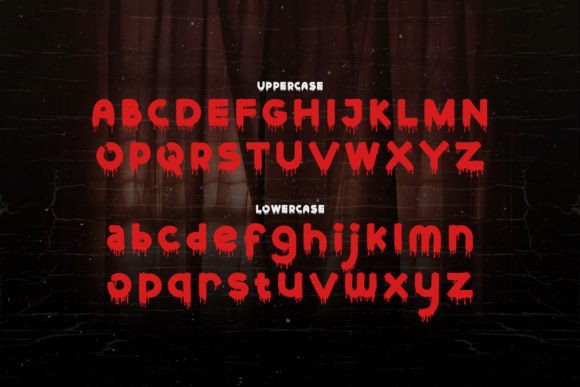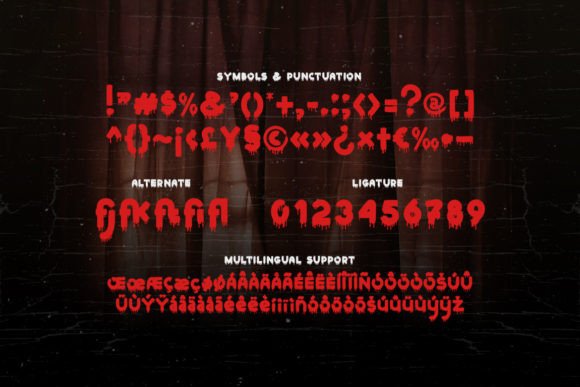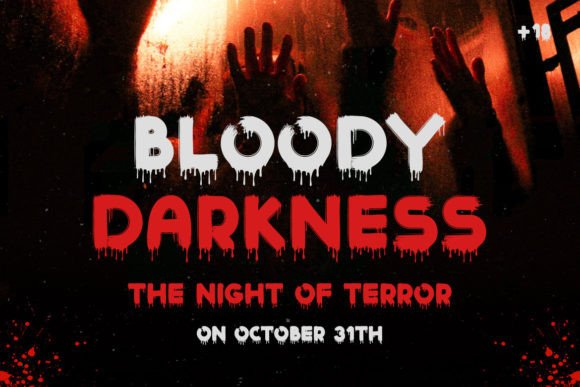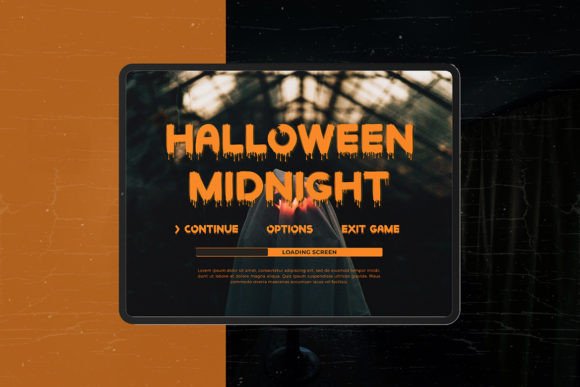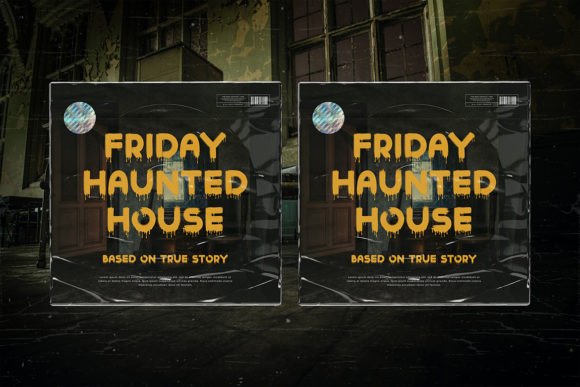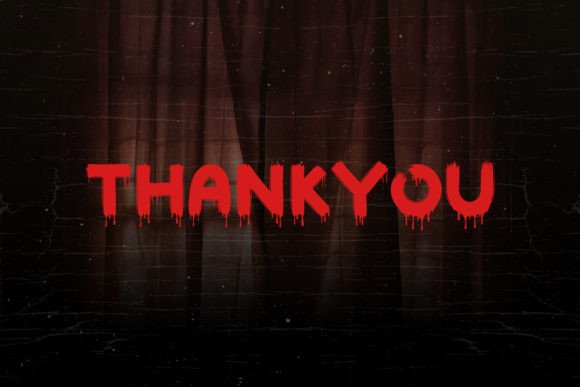
Unleash the Horror with Darkmore Font: The Ultimate Choice for Spine-Chilling Designs
Are you searching for a font that will add a touch of terror to your designs? Look no further than Darkmore, a hauntingly eerie display font that’s perfect for all your horror and scary-themed projects. With its unsettling and macabre appearance, Darkmore is sure to send shivers down your audience’s spine and leave a lasting impression.
The Inspiration Behind Darkmore
Darkmore is a font that’s been carefully crafted to evoke the feeling of fear and unease. Each letter is designed to look like it’s been scribbled in blood or carved out of stone, adding a touch of authenticity and horror to your text. The font’s distressed and rugged appearance gives it a unique and unsettling charm that’s sure to grab attention.
Perfect for Horror and Scary-Themed Projects
Whether you’re creating posters for a haunted house, designing a horror movie title sequence, or crafting spooky social media graphics, Darkmore is the perfect font for the job. Its eerie and terrifying appearance makes it an ideal choice for any project that requires a touch of horror and suspense. From creepy crawlies to haunted mansions, Darkmore is the perfect companion for any spooky design project.
Beyond Horror: Using Darkmore in Other Creative Projects
While Darkmore is perfect for horror and scary-themed projects, its versatility makes it suitable for a wide range of creative endeavors. Use it to add a touch of the macabre to your book covers, album art, or other design projects that require a unique and eye-catching font. Darkmore’s bold and attention-grabbing appearance makes it an excellent choice for any project that needs to stand out from the crowd.
Key Features of Darkmore Font
- Distressed and rugged appearance: Each letter is designed to look like it’s been scribbled in blood or carved out of stone, adding a touch of authenticity and horror to your text.
- Eerie and terrifying: Darkmore’s unsettling appearance is sure to send shivers down your audience’s spine and leave a lasting impression.
- Perfect for horror and scary-themed projects: From haunted houses to horror movie title sequences, Darkmore is the perfect font for any spooky design project.
- Versatile: Use Darkmore in a wide range of creative projects, from book covers to album art and social media graphics.
Tips for Using Darkmore Effectively
To get the most out of Darkmore, here are a few tips to keep in mind:
- Use it sparingly: Darkmore’s bold and attention-grabbing appearance can be overwhelming if used excessively. Use it sparingly to add a touch of horror and suspense to your designs.
- Pair it with contrasting fonts: Pair Darkmore with contrasting fonts to create visual interest and add depth to your designs.
- Experiment with colors: Darkmore looks great in bold and bright colors, but it can also be effective in more muted and subtle tones. Experiment with different colors to find the perfect look for your design.
If you’re looking for a font that will add a touch of terror to your designs, look no further than Darkmore. With its eerie and terrifying appearance, Darkmore is the perfect choice for any horror and scary-themed project. Its versatility and bold appearance make it suitable for a wide range of creative endeavors, from book covers to social media graphics. So why wait? Download Darkmore today and unleash the horror in your designs!